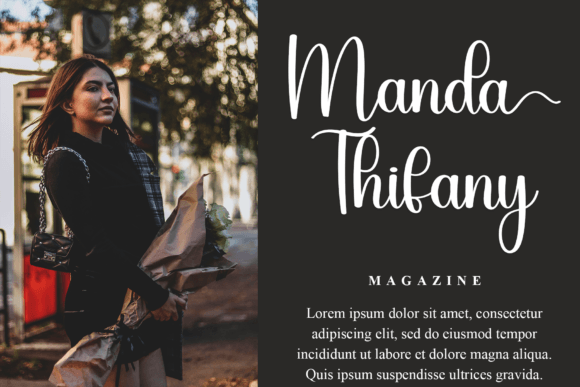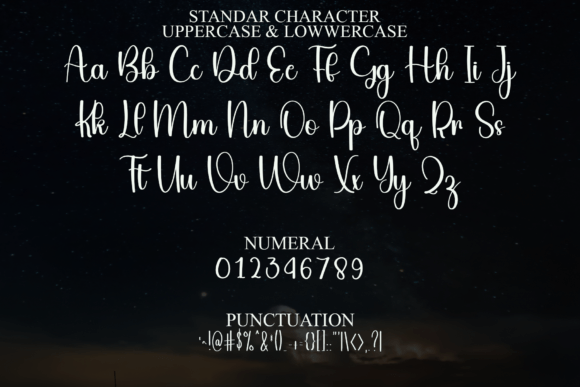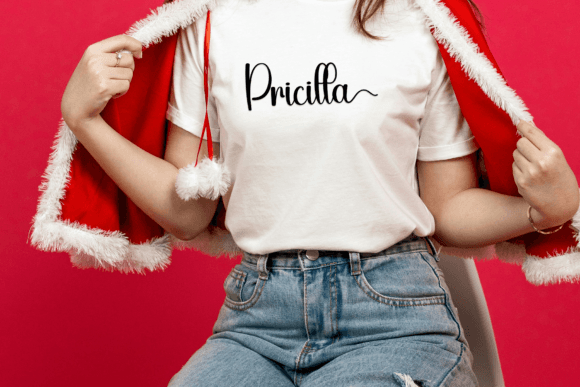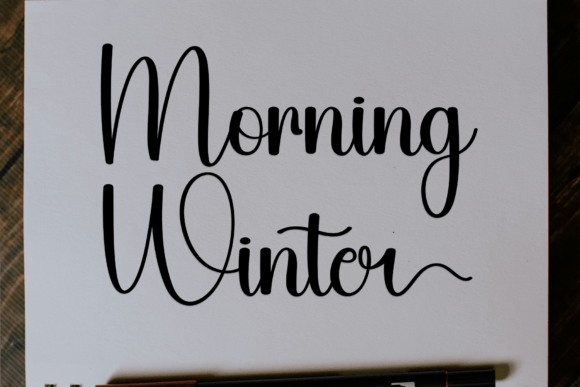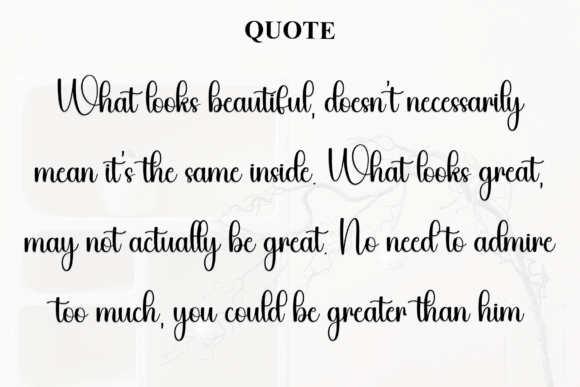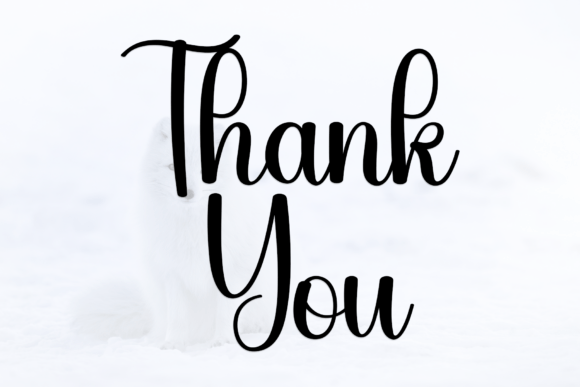
Introduction to Original Winter Font
Original Winter is a beautiful and eye-catching font designed with a soft, unique touch.
Its distinctive strokes give it a special character, making it meaningful and versatile for future use With various characters, itโs perfect for design projects, crafts, and other creative works.
Original Winter Font offers exceptional quality and versatility, making it a valuable addition to your design toolkit. Whether you’re creating for personal projects or commercial use, Original Winter Font delivers professional results.